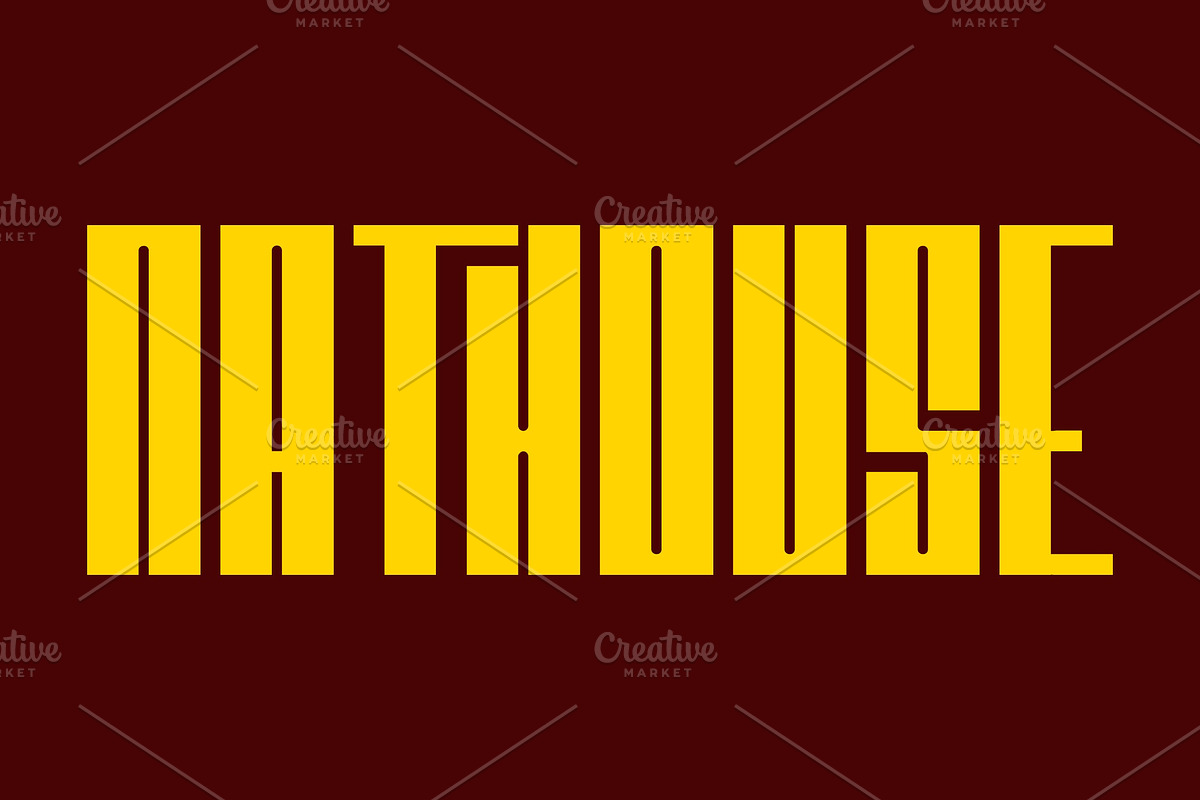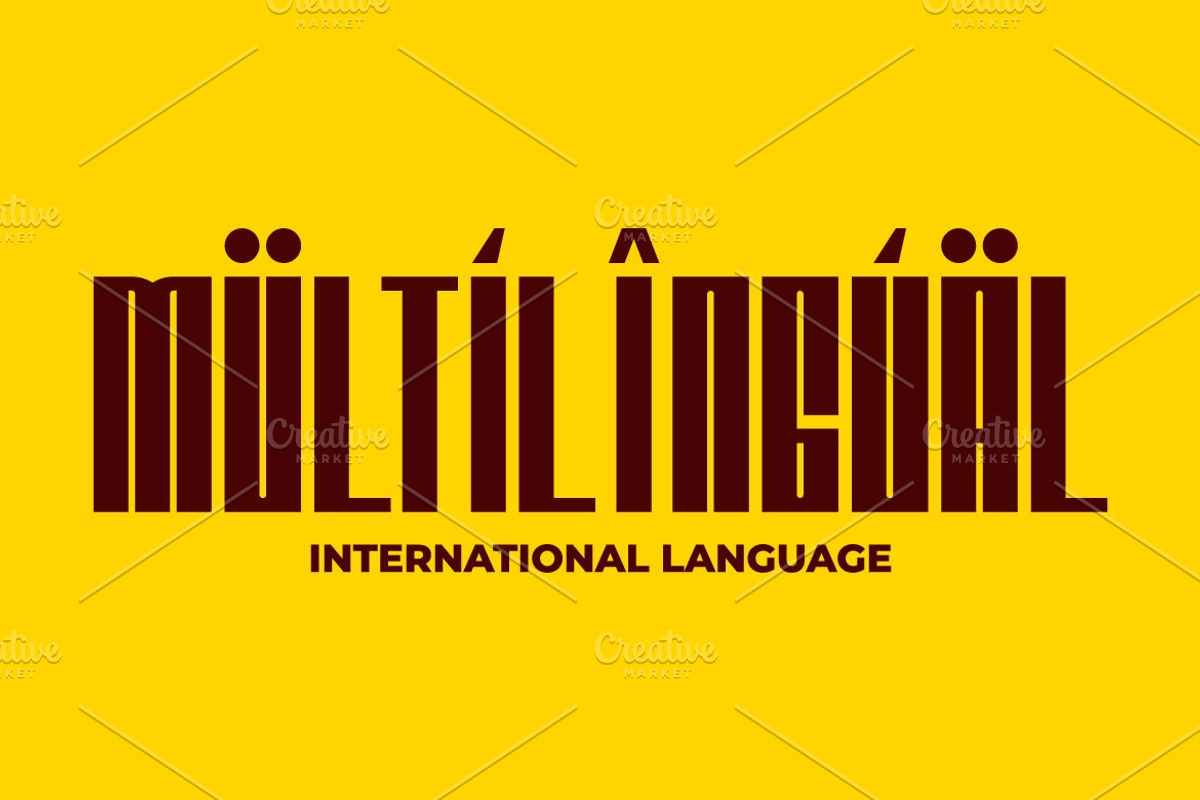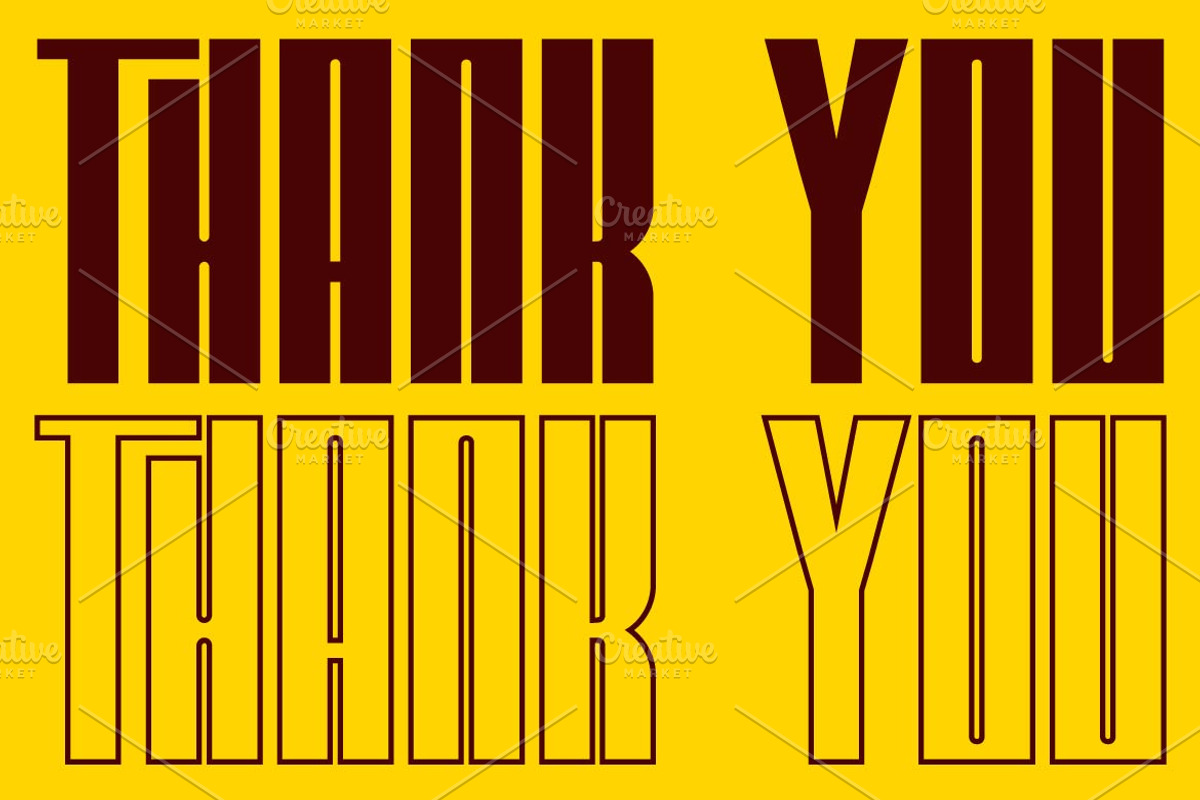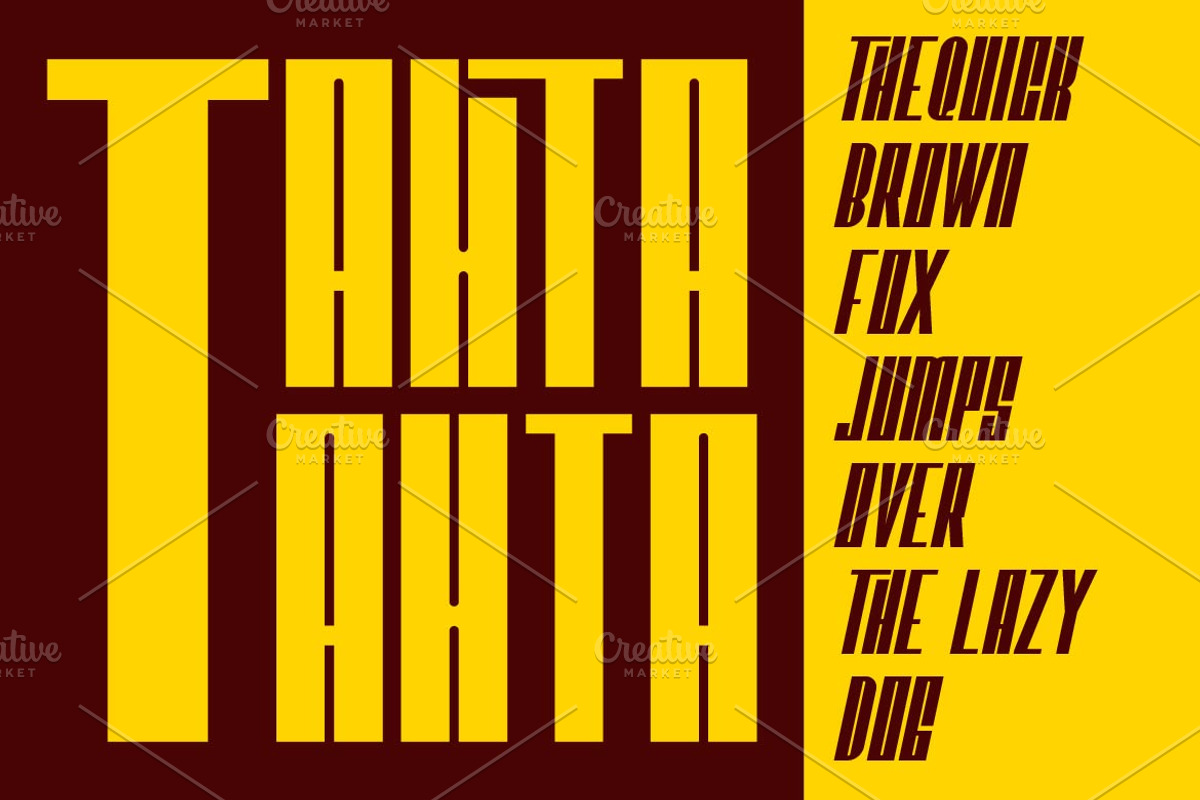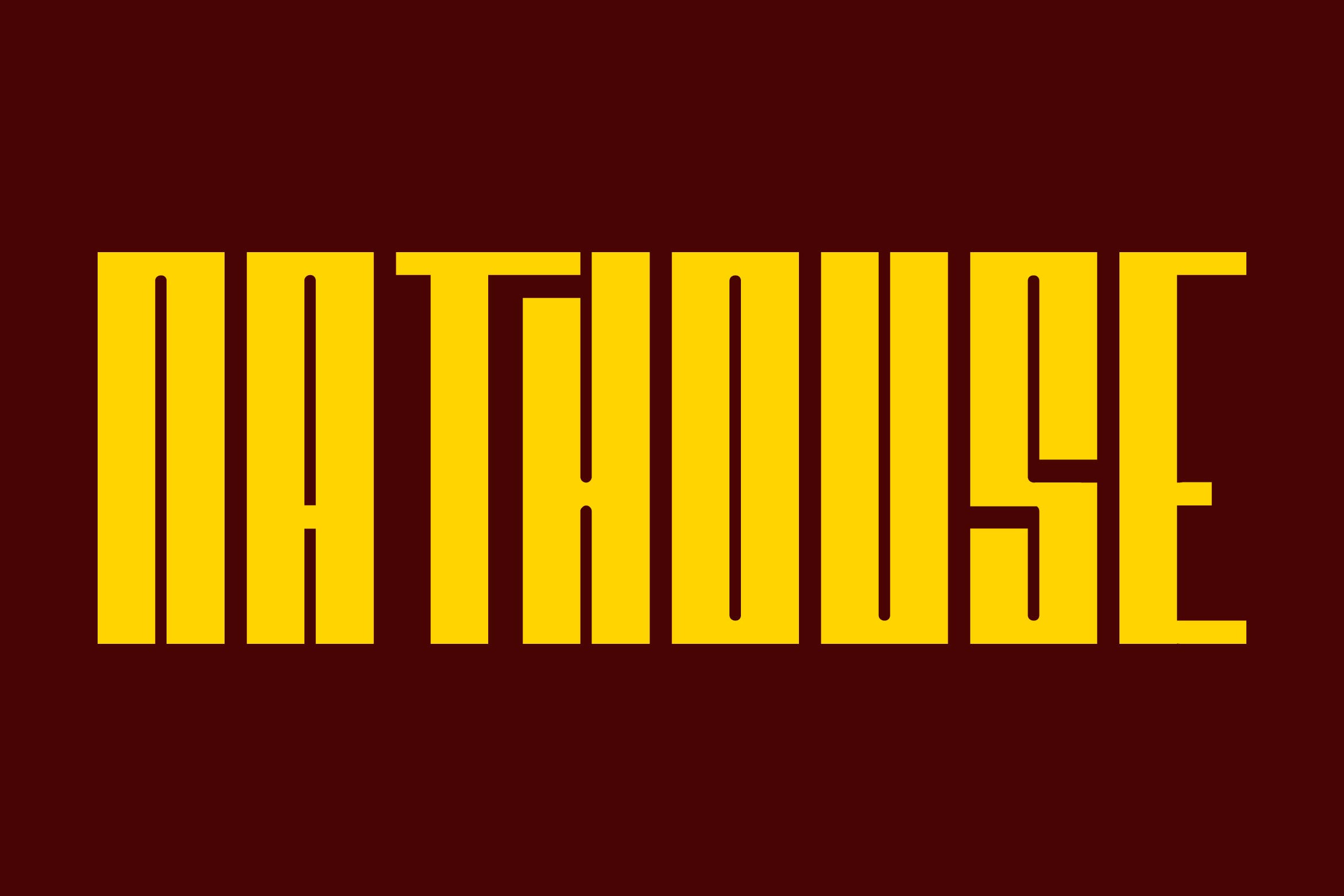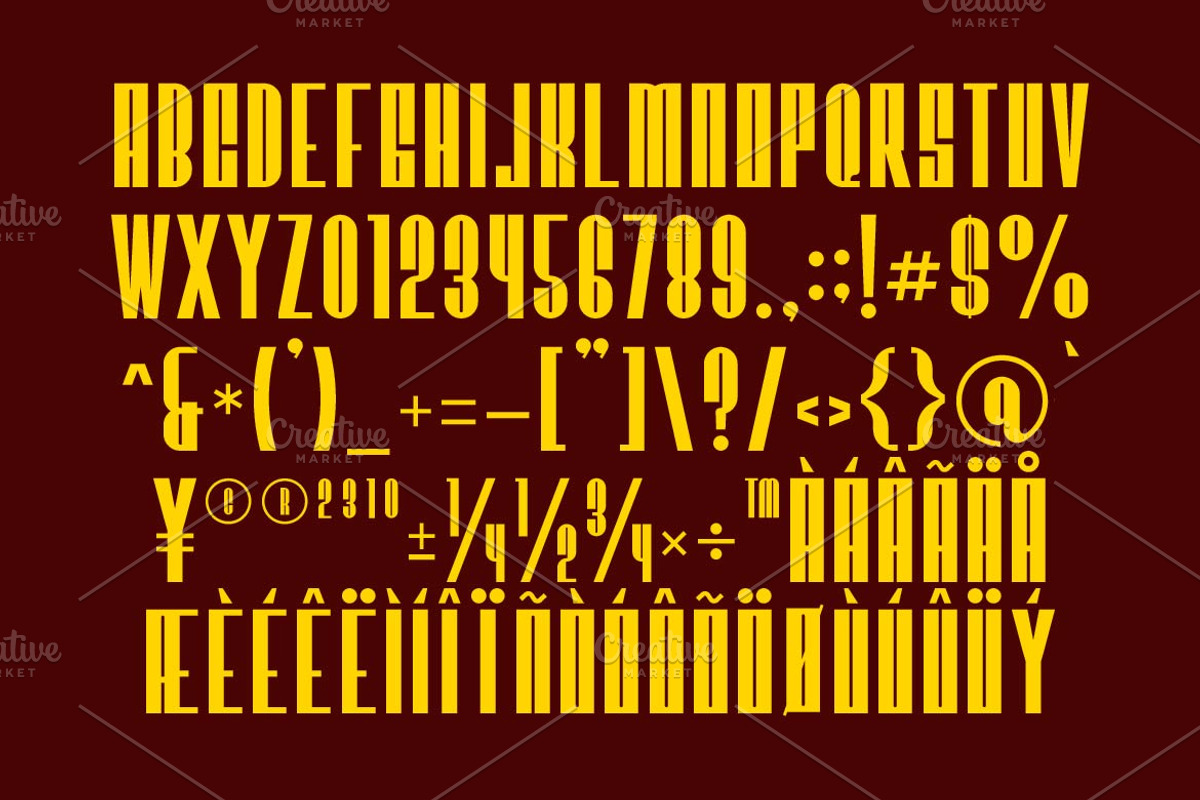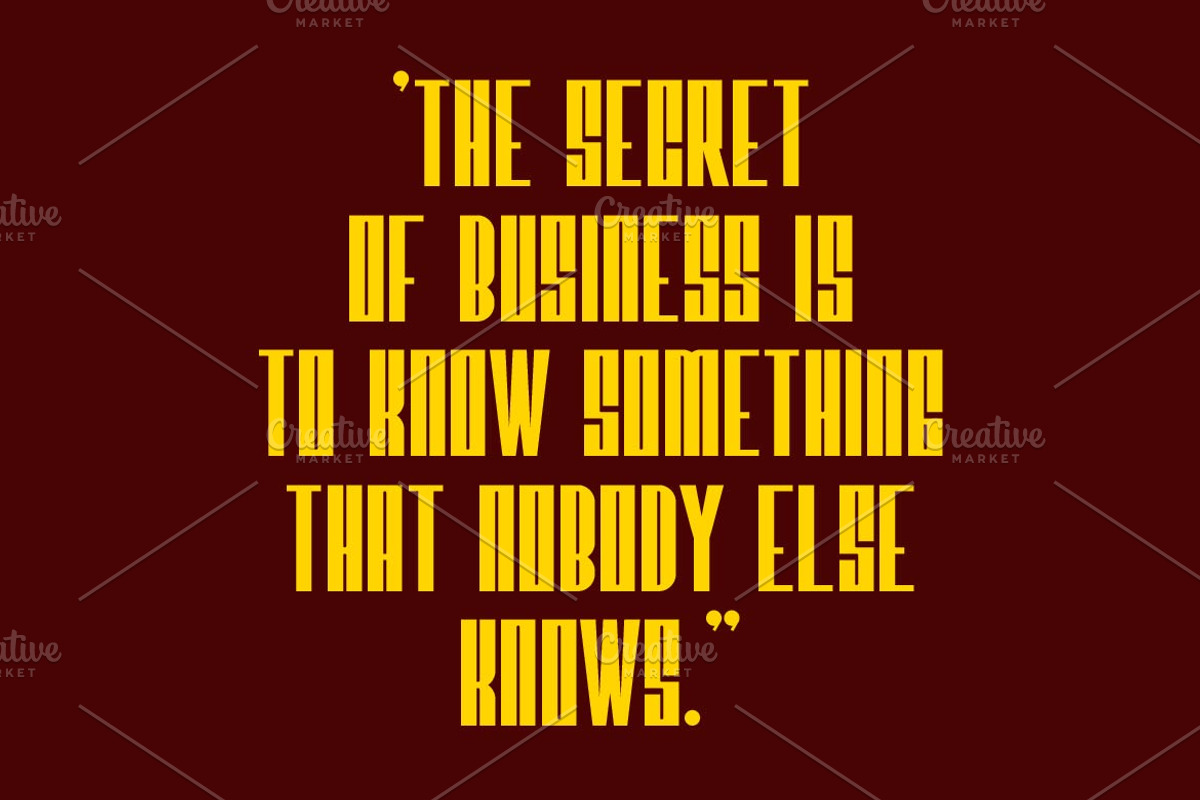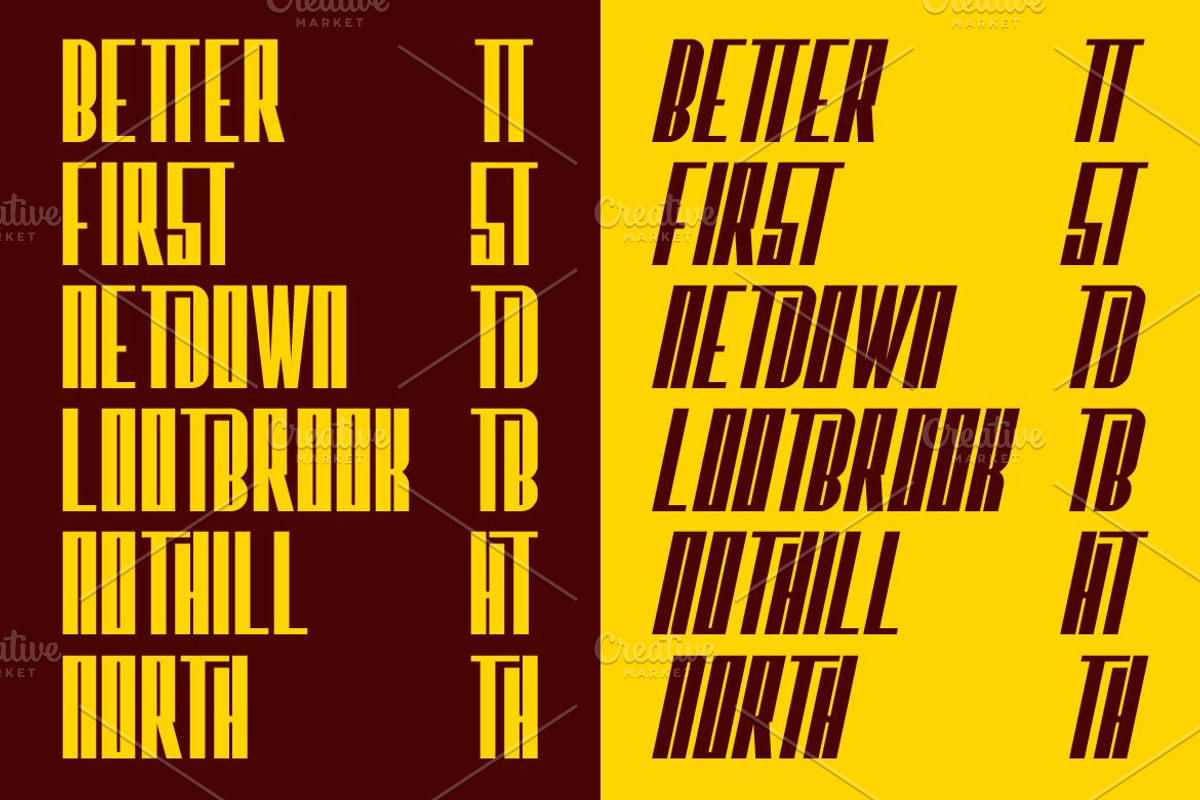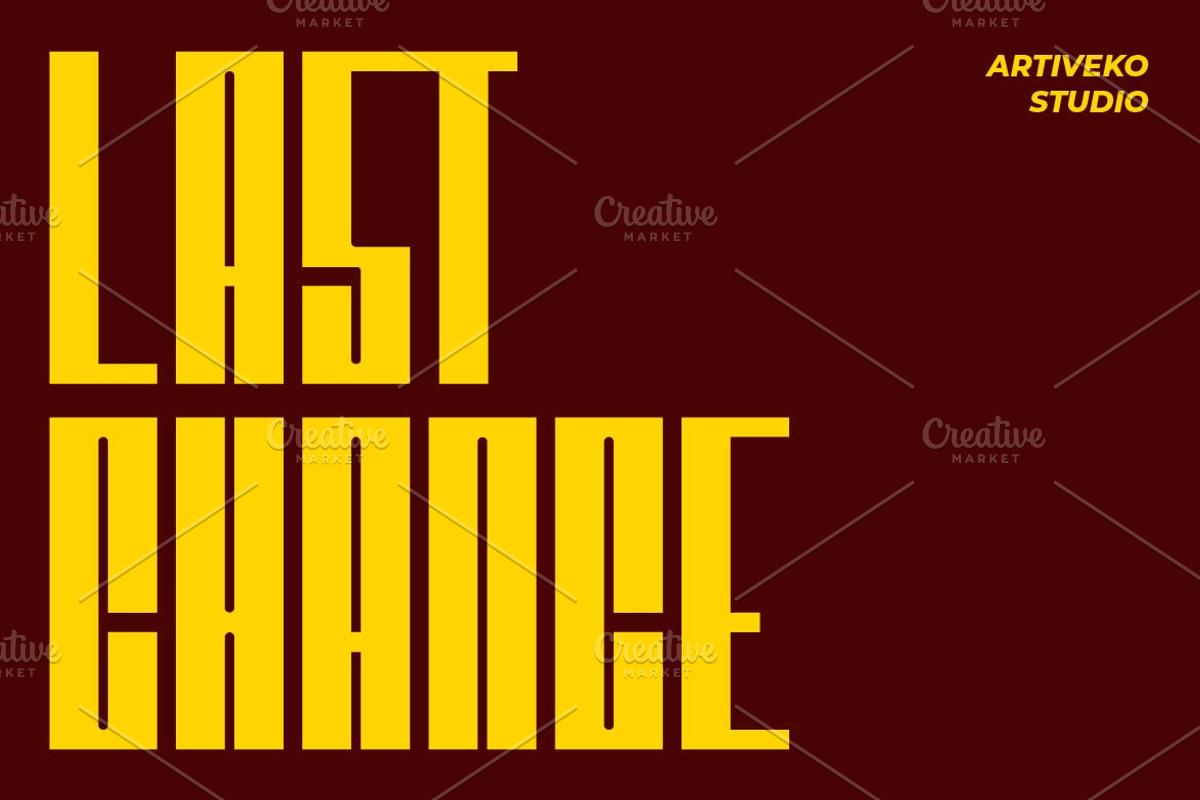
Nathouse Condensed Strong Font
Nathouse is a condensed display font designed to make a bold and modern statement. Its tall, narrow letterforms and sharp edges create a strong visual impact, perfect for headlines, posters, branding, and editorial layouts. With multilingual support, ligatures, and alternates, Nathouse delivers both power and style, making it a great choice for designs that demand attention and clarity. This fonts are great for product logo,wedding card logo, clothing brand logo, Vintage design and much more.